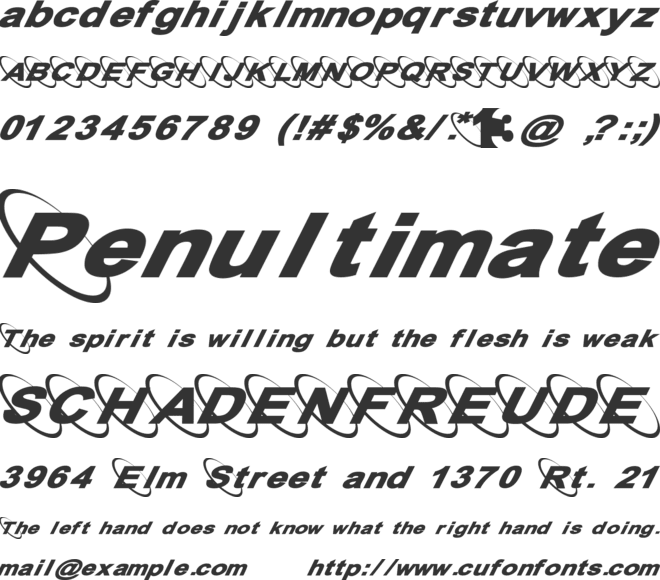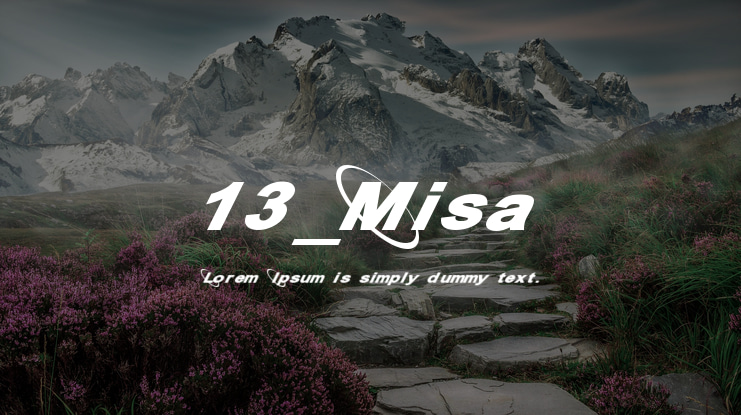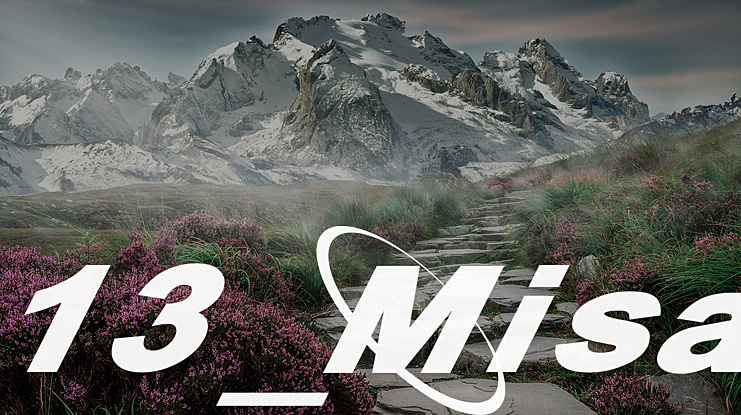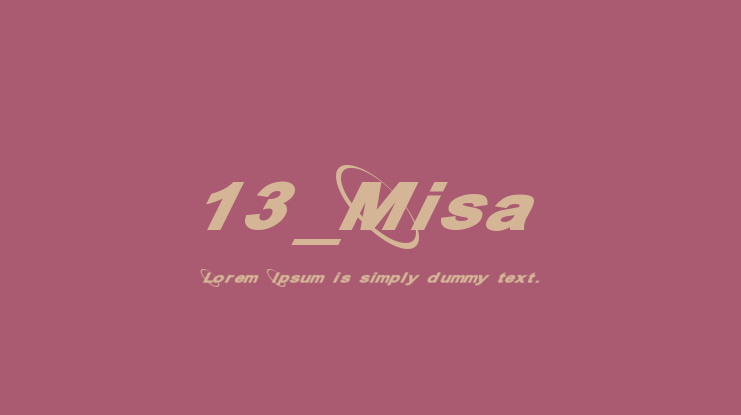
13_Misa Font
Revision notes: 2nd release. Major overhaul, added lower-case orbits.
Special character notes: To add more orbits around your capital letters use the open bracket, close bracket and backslash keys before the letter. Example keystrokes "[]M" (no quotes) will give you 3 orbits around M. To get orbits around the lowercase letters use the {}| before the letter like this "{}|a" (no quotes) will triple orbit a lowercase letter.
Other Notes: I made this font for my girlfriend (Now she is my wife) Lisa, she studies Japanese language so I titled it with the Japanese-ifyed pronunciation of her name.